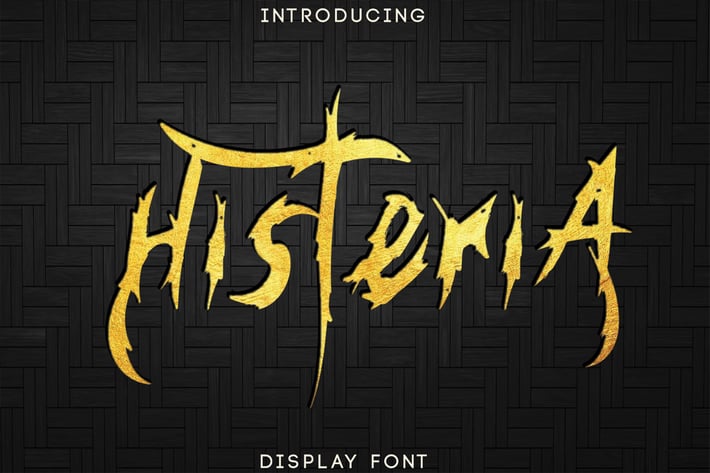
Histeria Typeface
Histeria is very stylistic so you can easily create a logo for your band or whatever. It comes with basic characters and a group of symbols and signs that are often used in the extreme music sector - classic items from Death- and Blackmetal such as pentagrams and crosses, droplets, roots and branches.